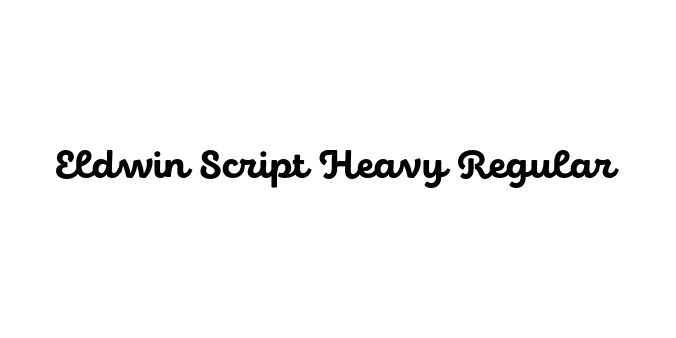
Eldwin Script Heavy Regular
Designed by Nikola Kostić
Eldwin Script Heavy Regular is a prominent member of the Eldwin font family, designed by Nikola Kostić of the Kostić Type Foundry. This typeface was conceived as a versatile tool for designers looking for a balance between traditional hand-drawn calligraphy and the bold, structured look of modern sign painting. The Heavy weight specifically emphasizes thick, fluid strokes that give it a substantial presence without losing the friendly and approachable nature inherent in its script design.
Released as part of a larger collection that includes both script and sans-serif variants, Eldwin Script is known for its smooth connections and organic character. It was designed to feel authentic and personal, making it an excellent choice for projects that require a human touch. Its robust structure ensures that it remains legible even when used in high-impact display settings, making it a favorite for contemporary branding and packaging design.
Eldwin Script Heavy Regular Best Uses
Ideal for creating memorable, high-impact logos with a friendly feel.
Perfect for artisanal product labels that require a handcrafted aesthetic.
Excellent for bold, eye-catching headlines on Instagram or Pinterest graphics.
Works well for promotional posters and signage that need a personal touch.